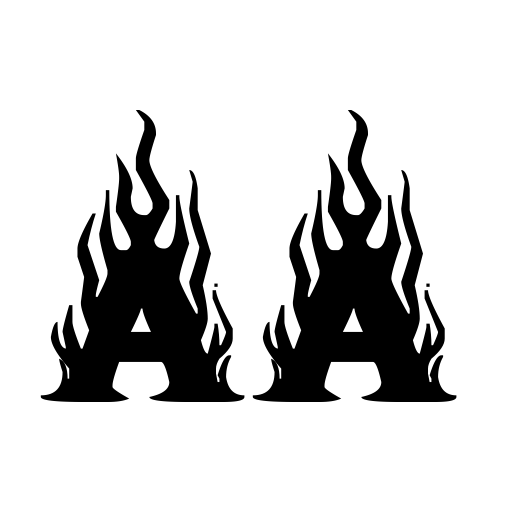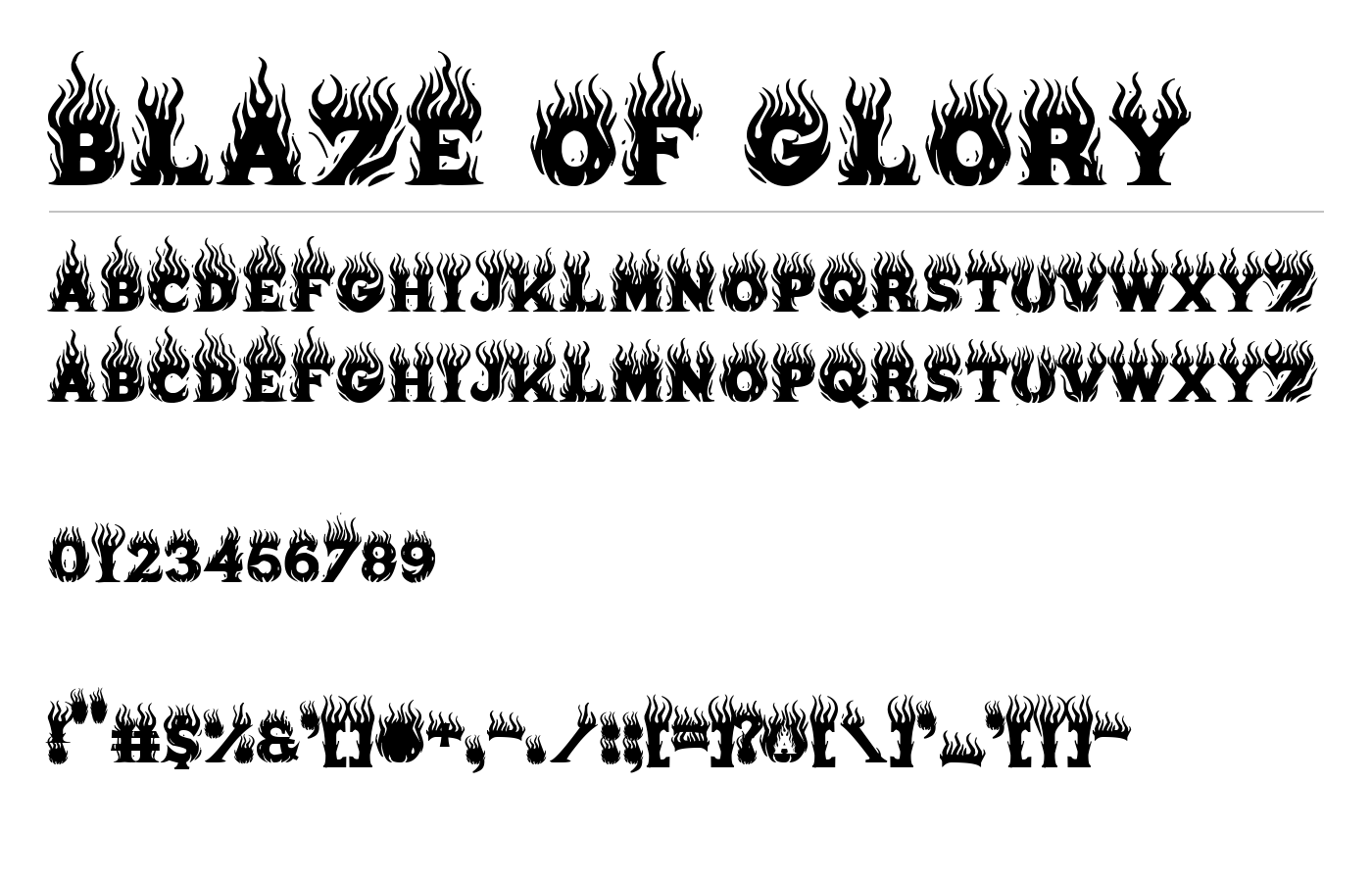
Blaze of Glory is a bold, decorative display font featuring strong serif letterforms engulfed in dynamic flame shapes, creating a striking and energetic visual impact. Its uppercase-only design with high contrast between the solid base and fiery extensions makes it perfect for attention-grabbing headlines, logos, and themed designs that evoke excitement and intensity. This font works best for creative projects needing a dramatic, adventurous, or edgy vibe.
Blaze of Glory Font
About Blaze of Glory Font
| Font family | Blaze of Glory Font |
| Designer | Allison J. James |